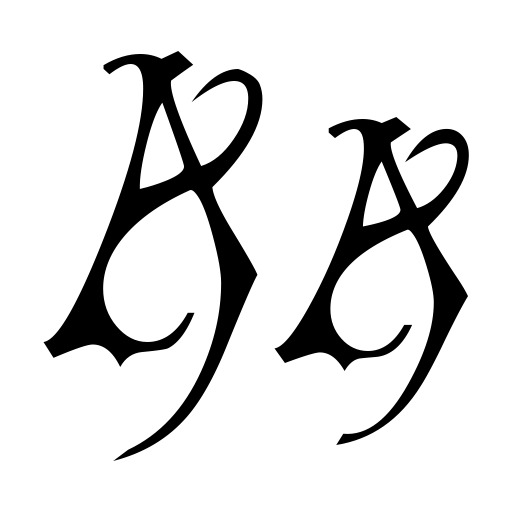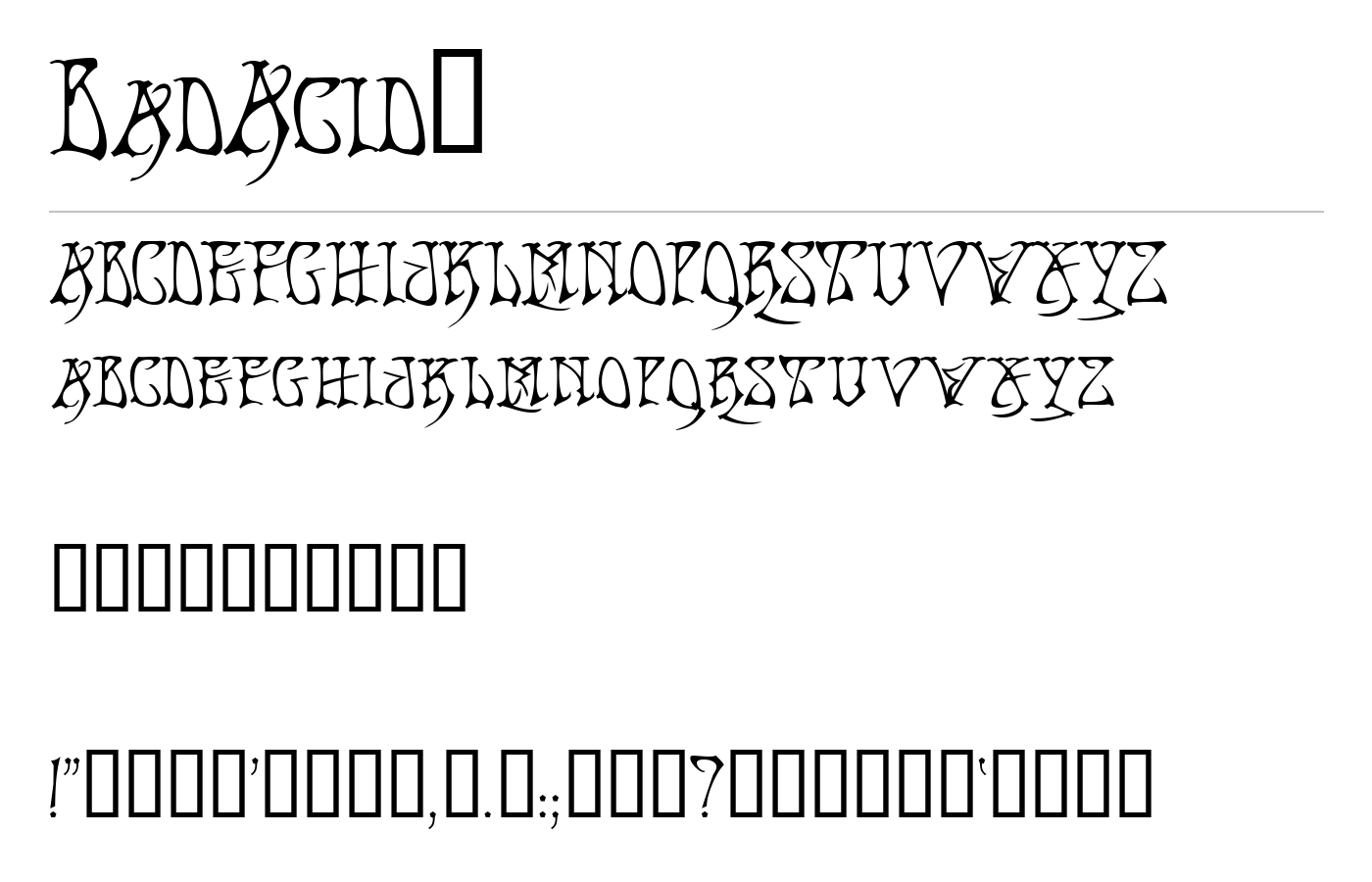
BadAcid™ is a highly decorative serif font with sharp, dramatic strokes and a gothic-inspired style that gives it a dark, edgy personality. Its narrow letterforms and intricate, pointed details make it ideal for striking headlines, posters, or branding that seeks a mysterious, intense, or alternative vibe. Best suited for creative projects where bold visual impact is key, this font adds a unique, artistic flair.
BadAcid™ Font
About BadAcid™ Font